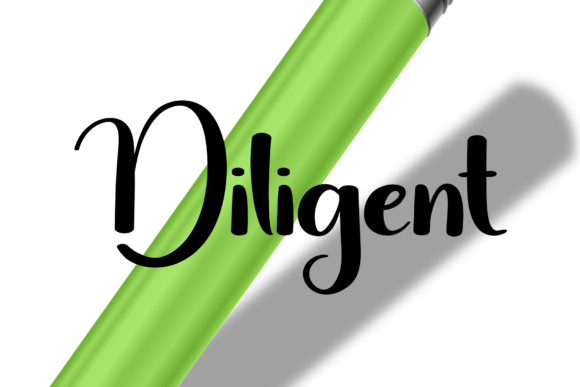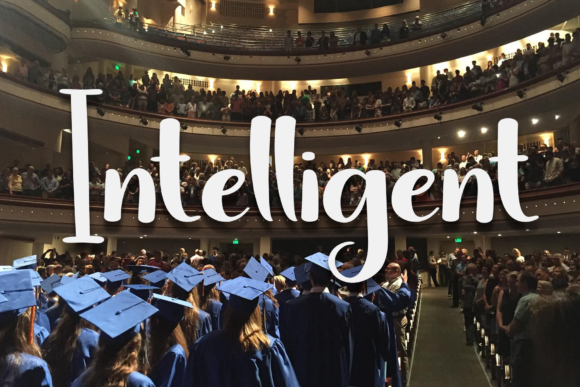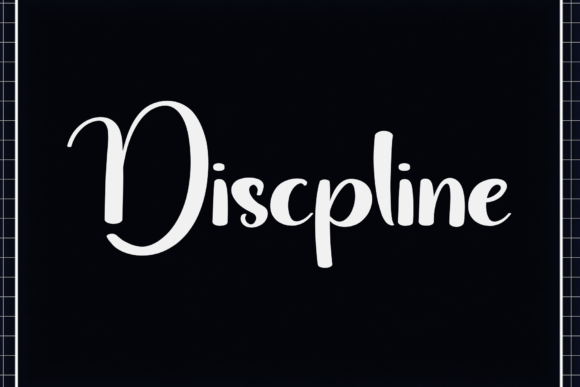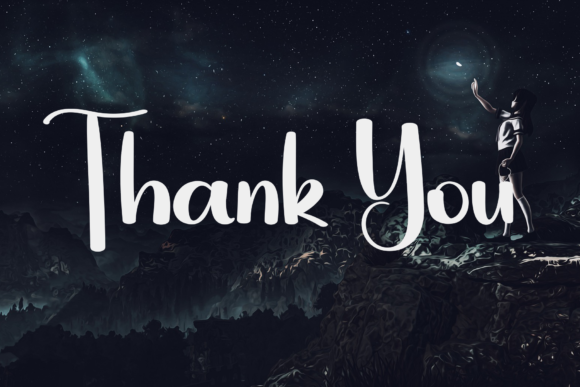
Home School Font
“Home School” is a delightful script font with a sweet, whimsical, flowing, and thin design. This font features characters that dance along the baseline, adding a playful and enchanting touch to your design projects. Crafted to bring a luxurious spark, “Home School” is versatile and suitable for a wide range of creative endeavors, including invitations, branding materials, or any project where a charming and sophisticated aesthetic is desired.
The whimsical and flowing nature of “Home School” is evident in its thin script style. The characters move gracefully along the baseline, creating a sense of playfulness and movement. This makes the font an excellent choice for projects where a touch of whimsy and elegance is desired.
Incorporating “Home School” into your design projects will add a luxurious spark. The thin script and dancing characters contribute to an overall aesthetic that feels refined and sophisticated, making it particularly fitting for projects that demand a touch of elegance and exclusivity.
Whether used for invitations, branding, or any design endeavor, “Home School” is a font that brings a delightful and luxurious quality to your work. Its thin script and playful characters create a visual harmony that elevates the overall aesthetic, making it a standout choice for those seeking a blend of sophistication and whimsy.
In summary, “Home School” is a sweet and whimsical script font designed to add a luxury spark to your design projects. Its flowing and thin script, combined with dancing characters, creates an elegant yet playful vibe. Let “Home School” be the font that infuses your creations with a touch of charm and luxury, turning your designs into enchanting works of art.